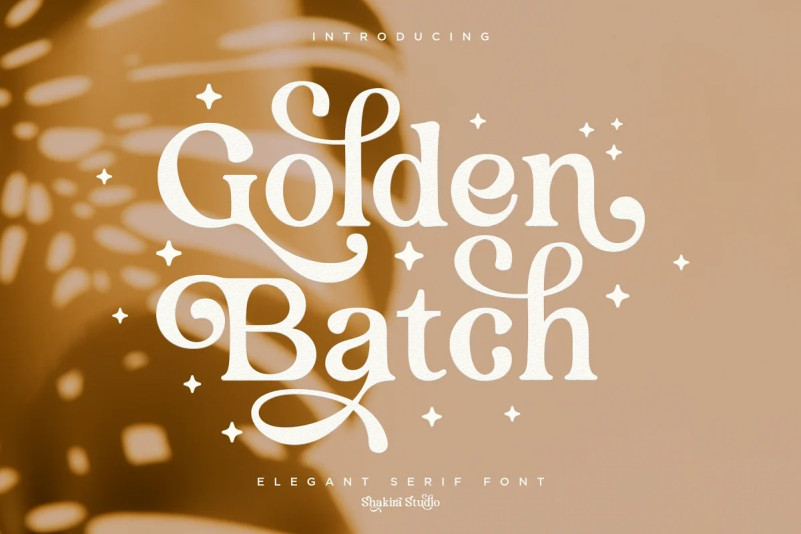
Golden Batch Font
Golden Batch Serif Font is a Elegant Serif Font. Create bold, gorgeous headlines and elegant designs with a vintage flair. George’s contrasting lines and curved terminals give a sleek, elegant look to logos, holiday cards, wedding invitations, quotes, advertisements, and more.
Golden Batch has full set of modern uppercase and lowercase letters, numerals, punctuation, also multilingual symbols. It included opentype features like ligature, alternate and many others.